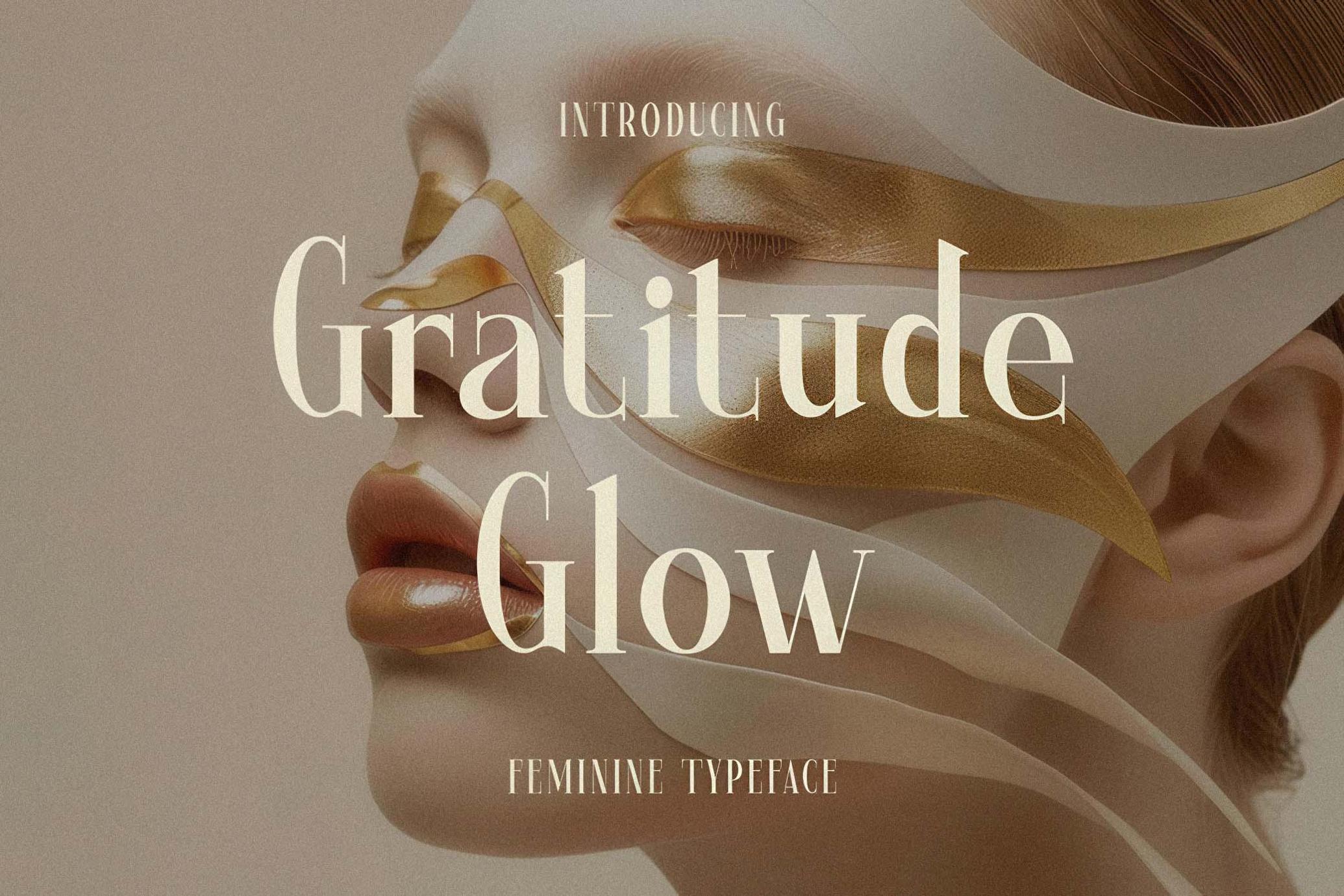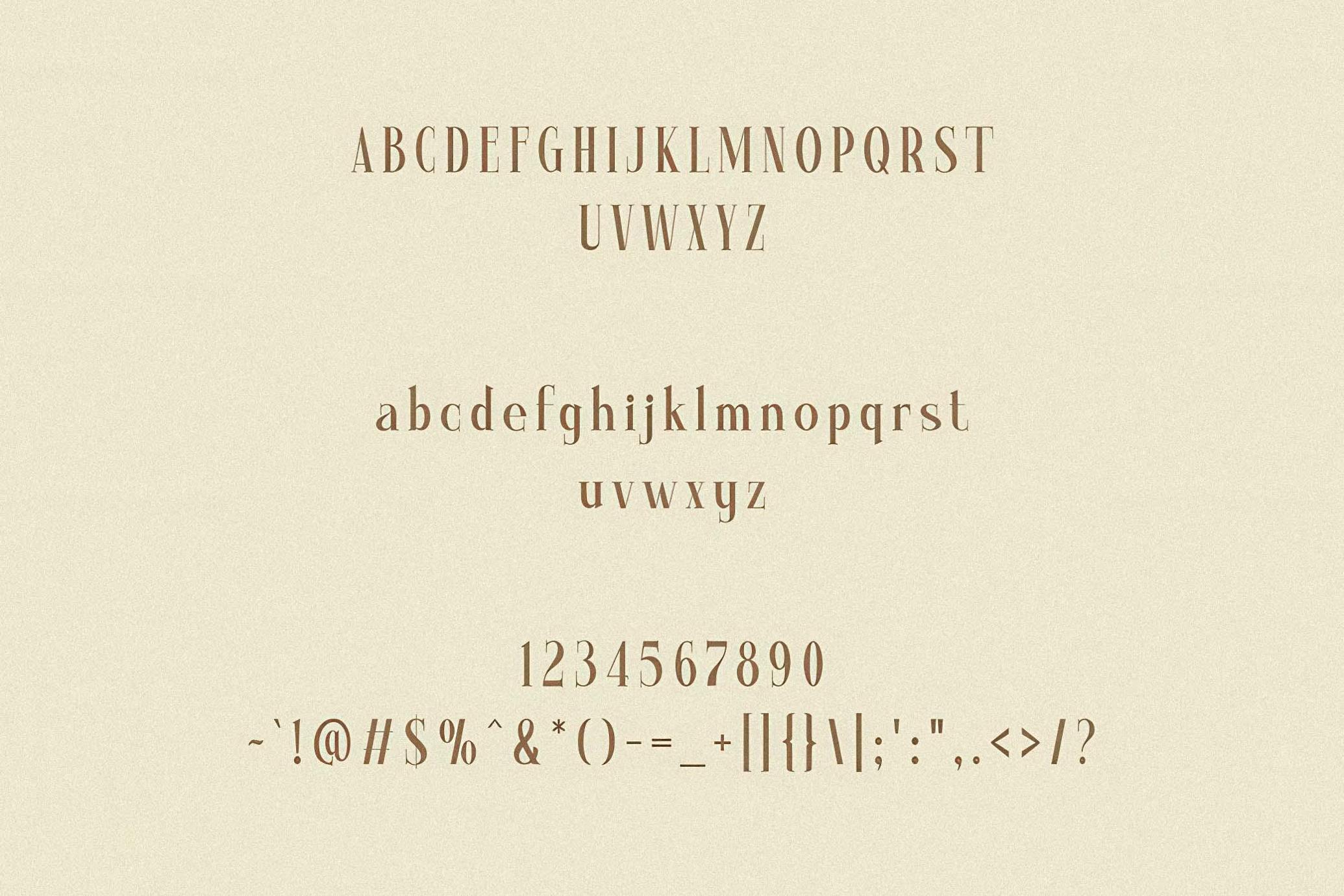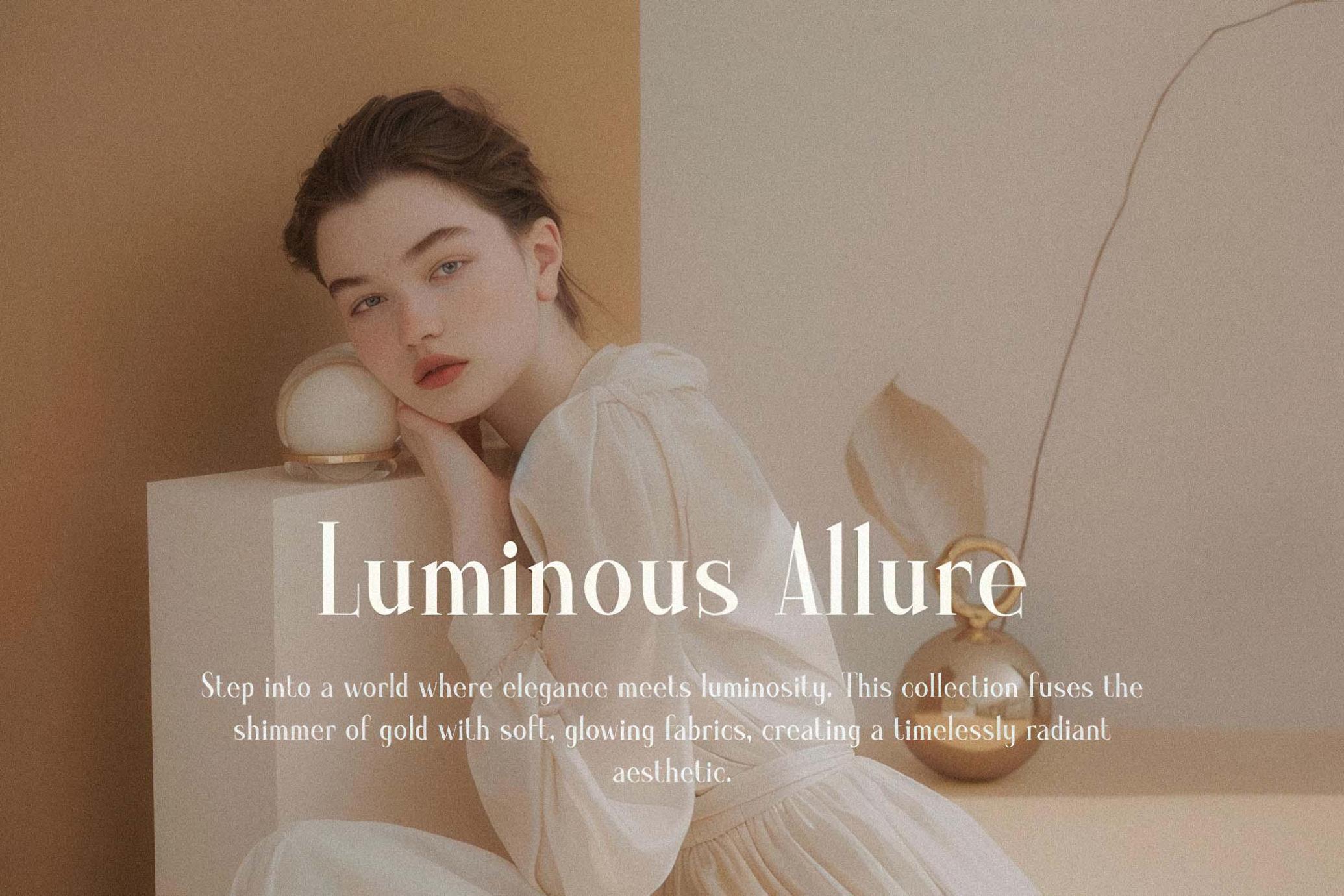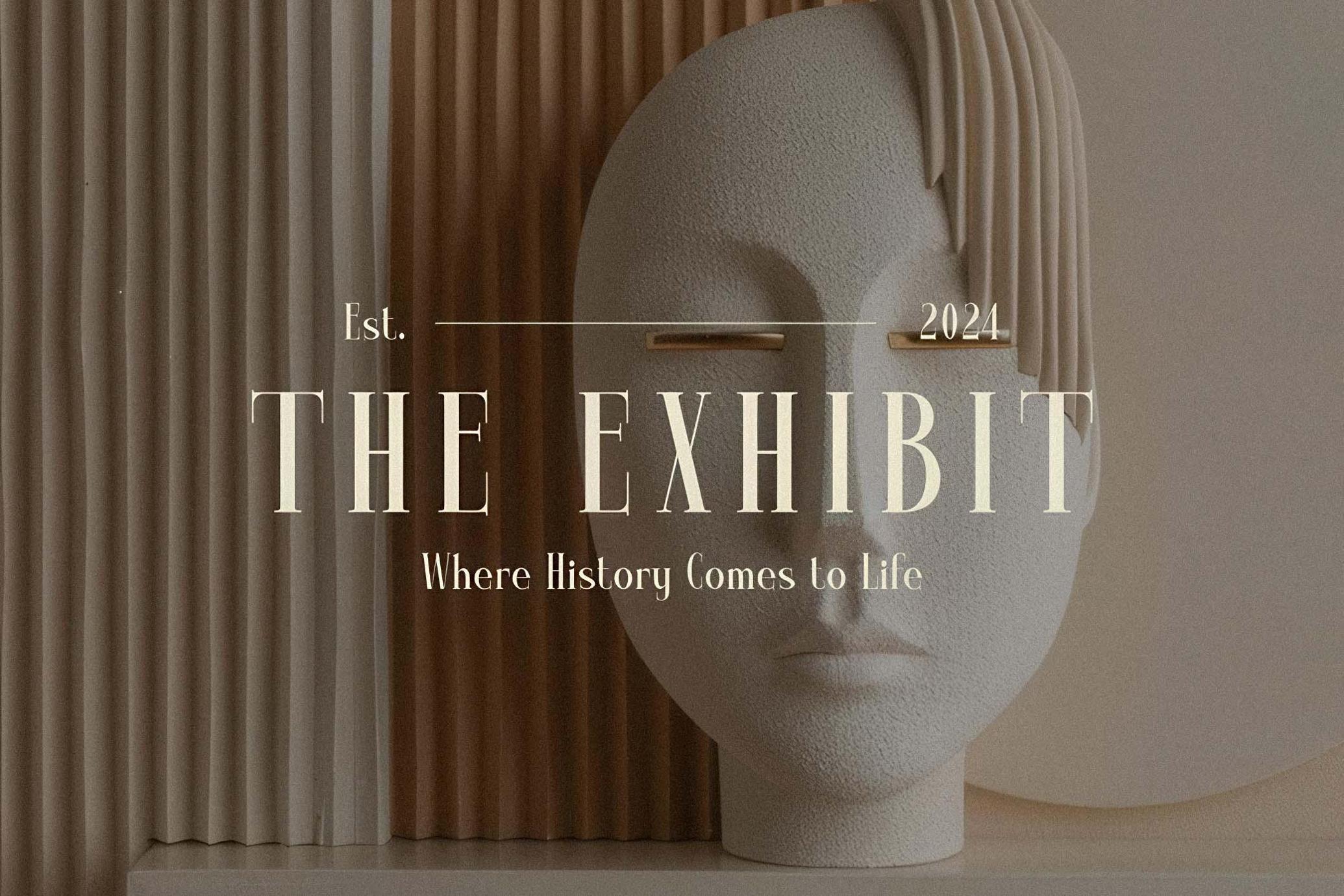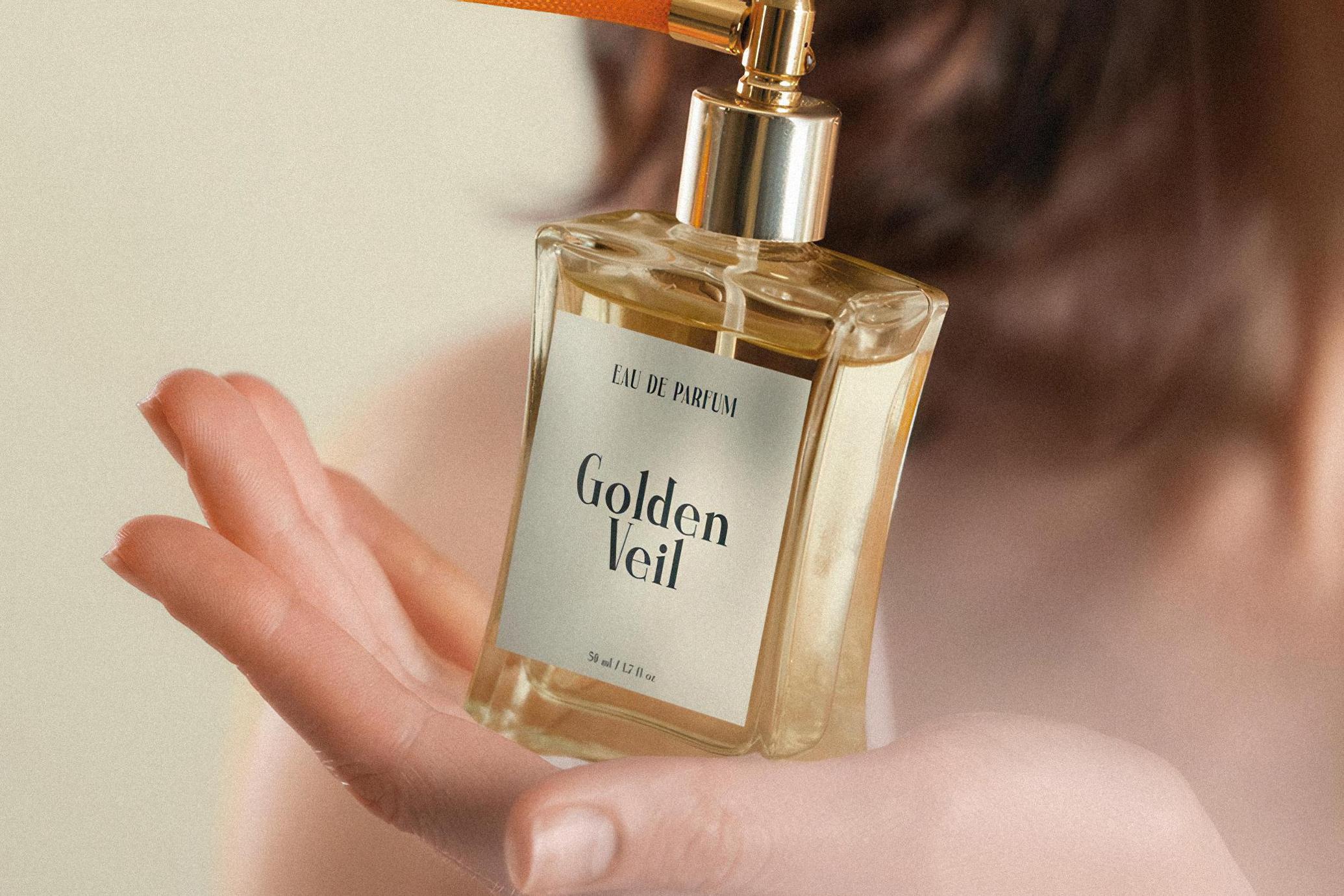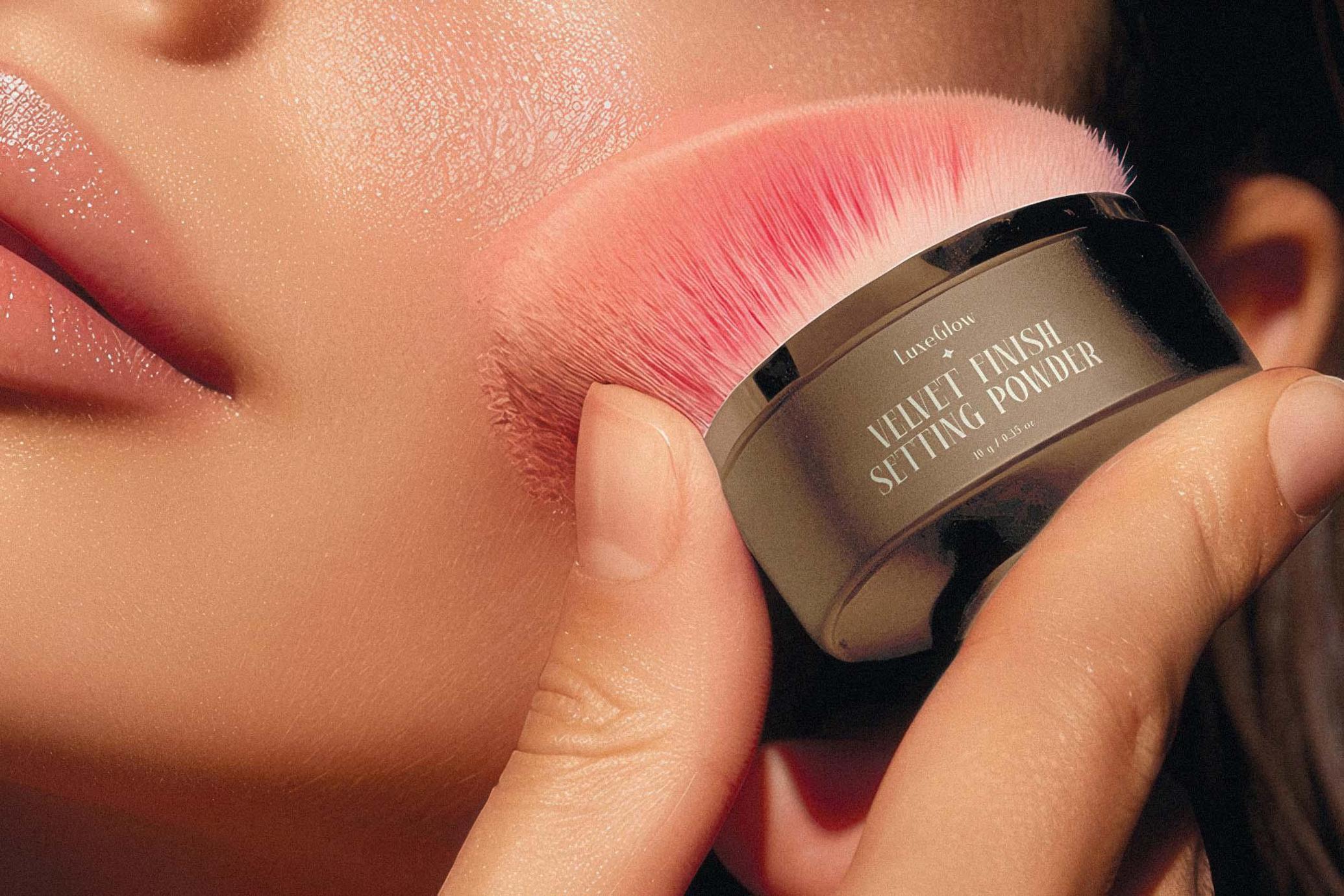
Gratitude Glow Typeface
Introducing Gratitude Glow, where elegance meets modernity. This sophisticated serif typeface radiates with timeless beauty and a refined sense of style.
Designed for those who appreciate the art of simplicity, Gratitude Glow offers clean lines and graceful curves that make every letter a masterpiece.
Whether you're crafting luxury branding, editorial layouts, or stylish invitations, this typeface brings a touch of class and contemporary flair to your projects. Illuminate your designs with the serene and polished essence of Gratitude Glow—where modern design shines with an elegant glow.